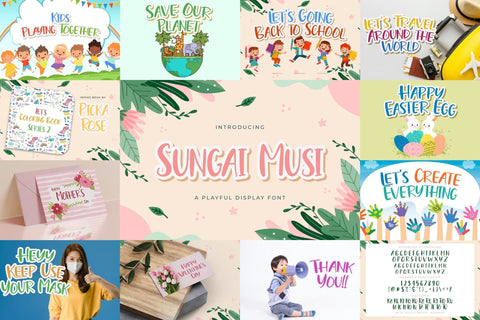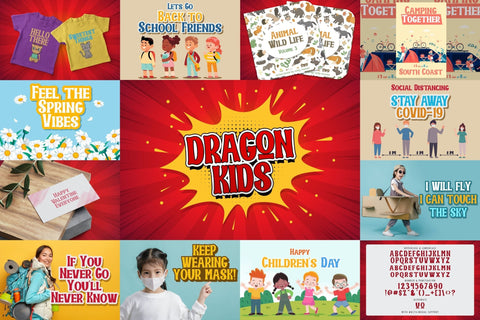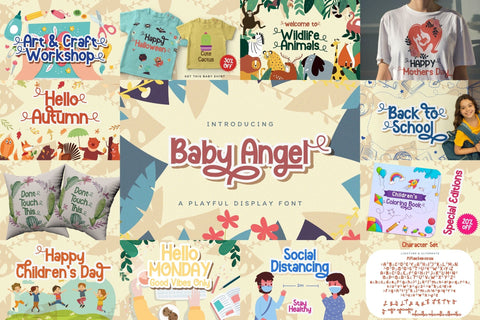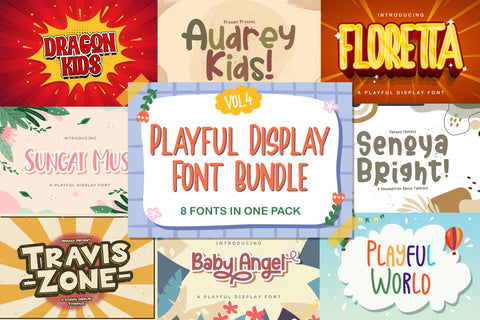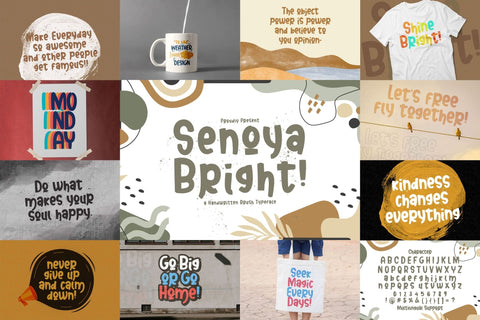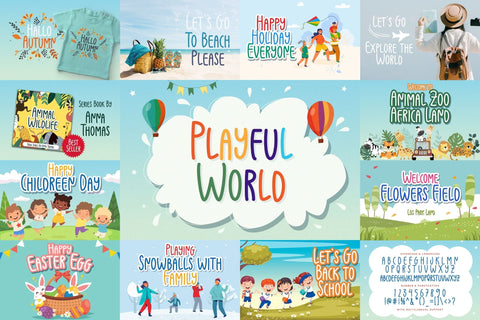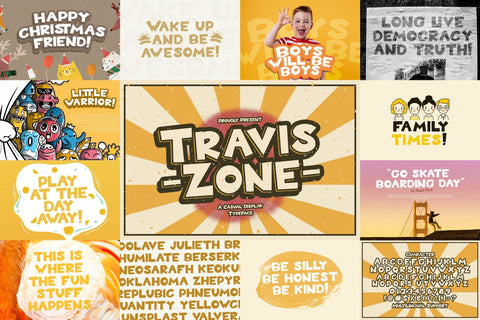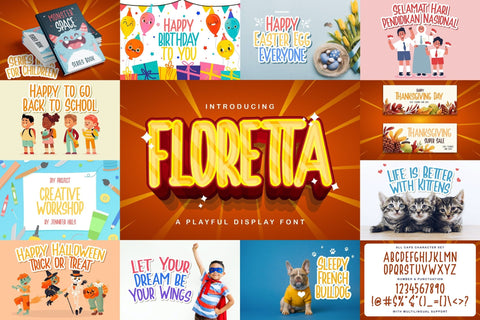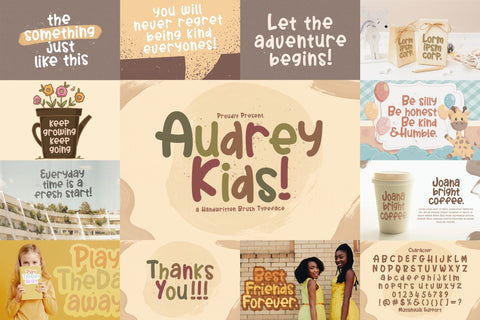
Playful Display Font Bundle Vol 4
Playful Display Font Bundle Vol 4 embodies fun, quirkiness and authenticity. This enchanting display font will turn any creative idea into a true standout.
This Display Font Bundle is a playful, and quirky font that contains 8 high quality fonts. Its friendly feel makes this font incredibly versatile, fitting a wide range of contexts. Get creative with its childlike playfulness, and use it to brighten up any kids and school project!
FONTS INCLUDED :
1. Dragon Kids
2. Floretta
3. Sungai Musi
4. Senoya Bright
5. Audrey Kids
6. Travis Zone
7. Baby Angel
8. Playful World